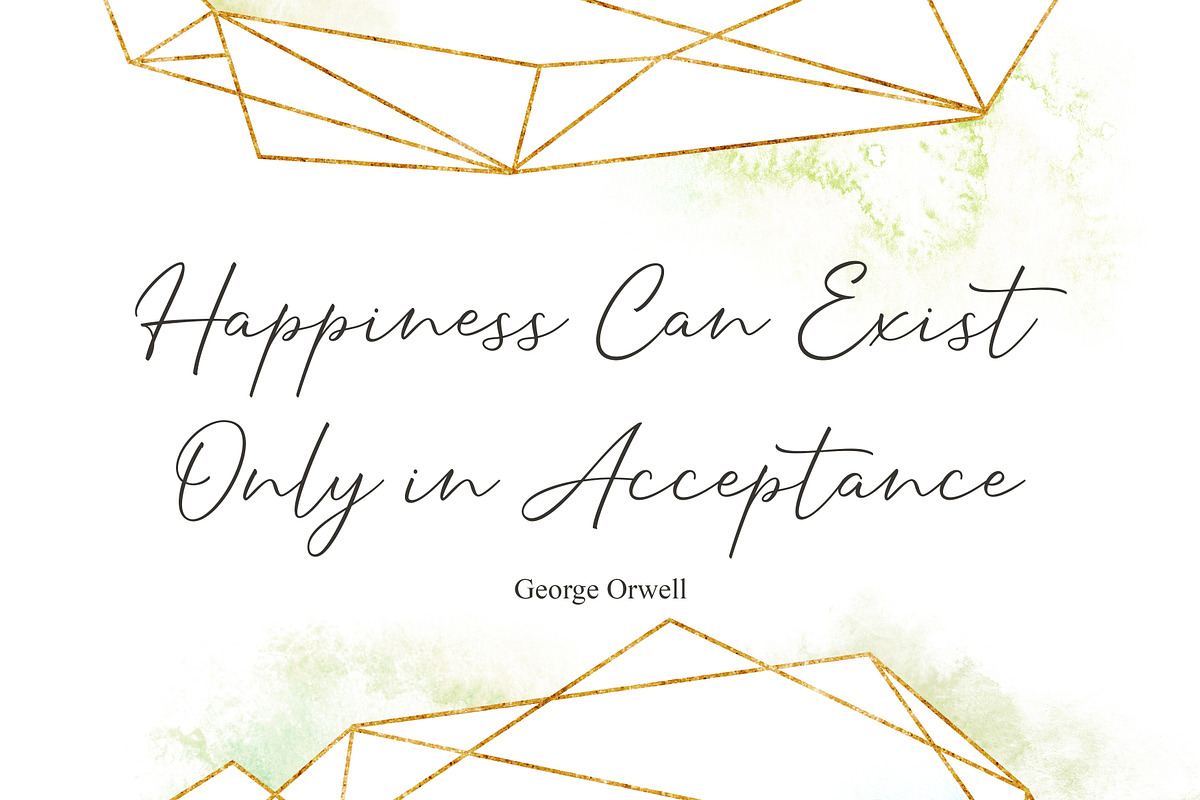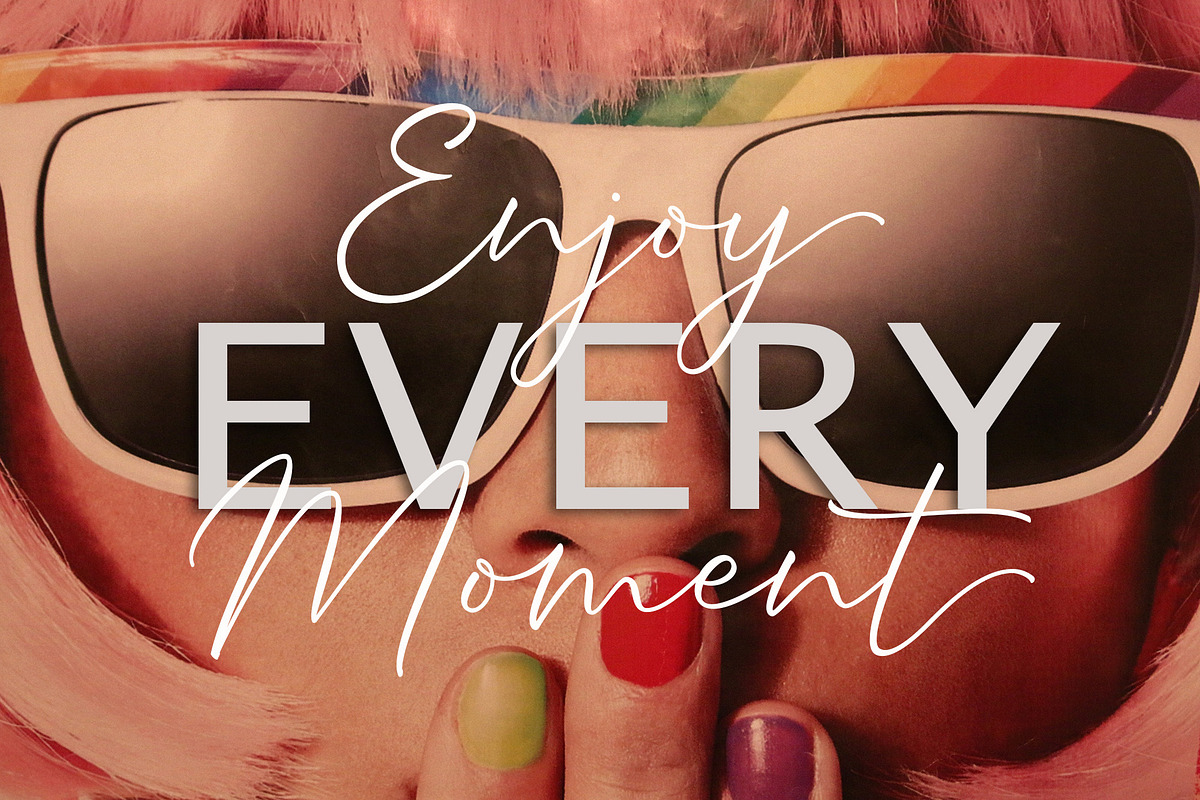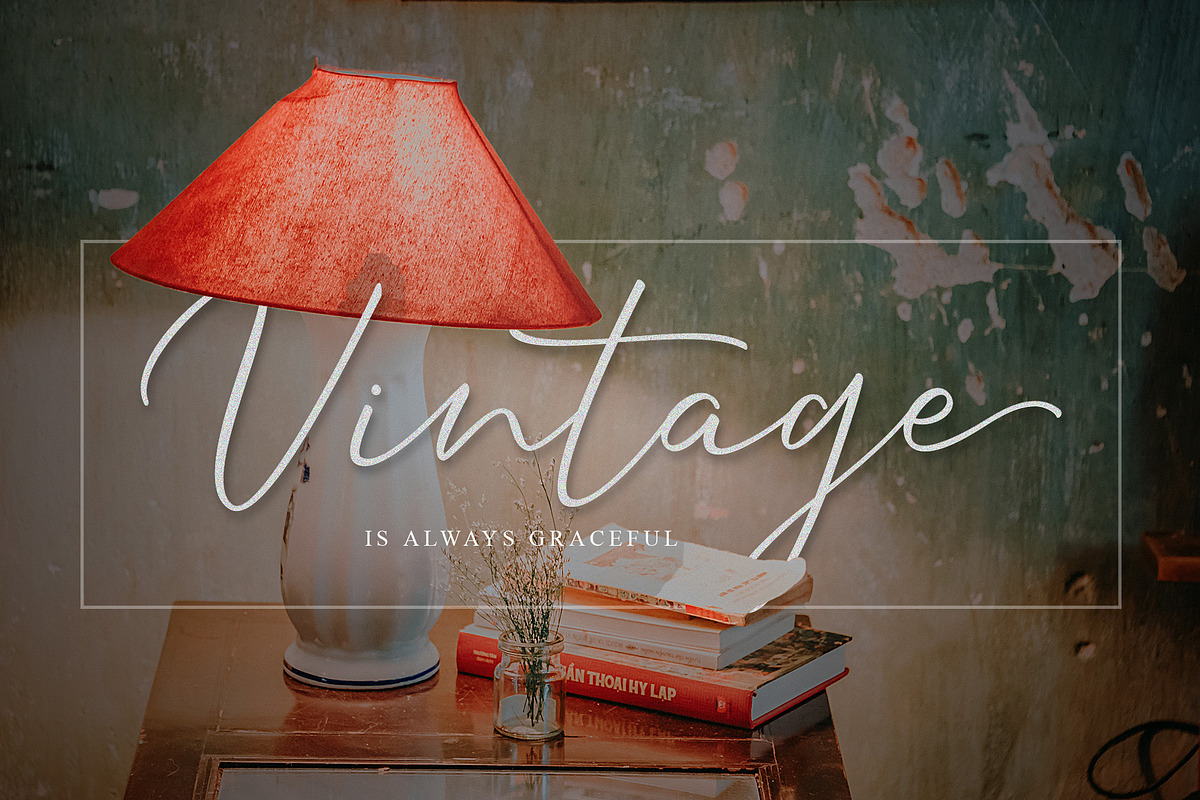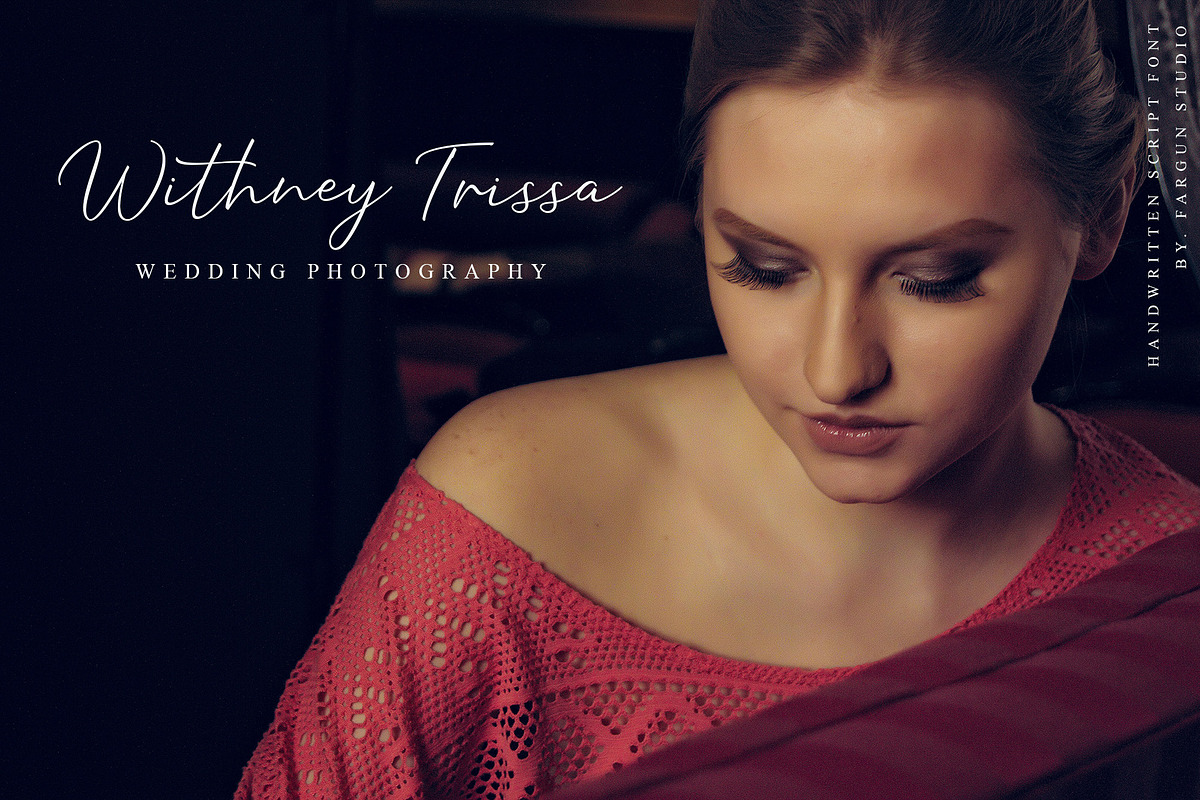
Hanthemn Signature Font
Hanthemn is modern script that perfect for photography, branding, signature. It is so beautiful and classy for your projects.
Why Hanthemn Signature Font is worth a look
Hanthemn Signature Font by Fargun Studio fits naturally into Branding, posters, packaging, typography.